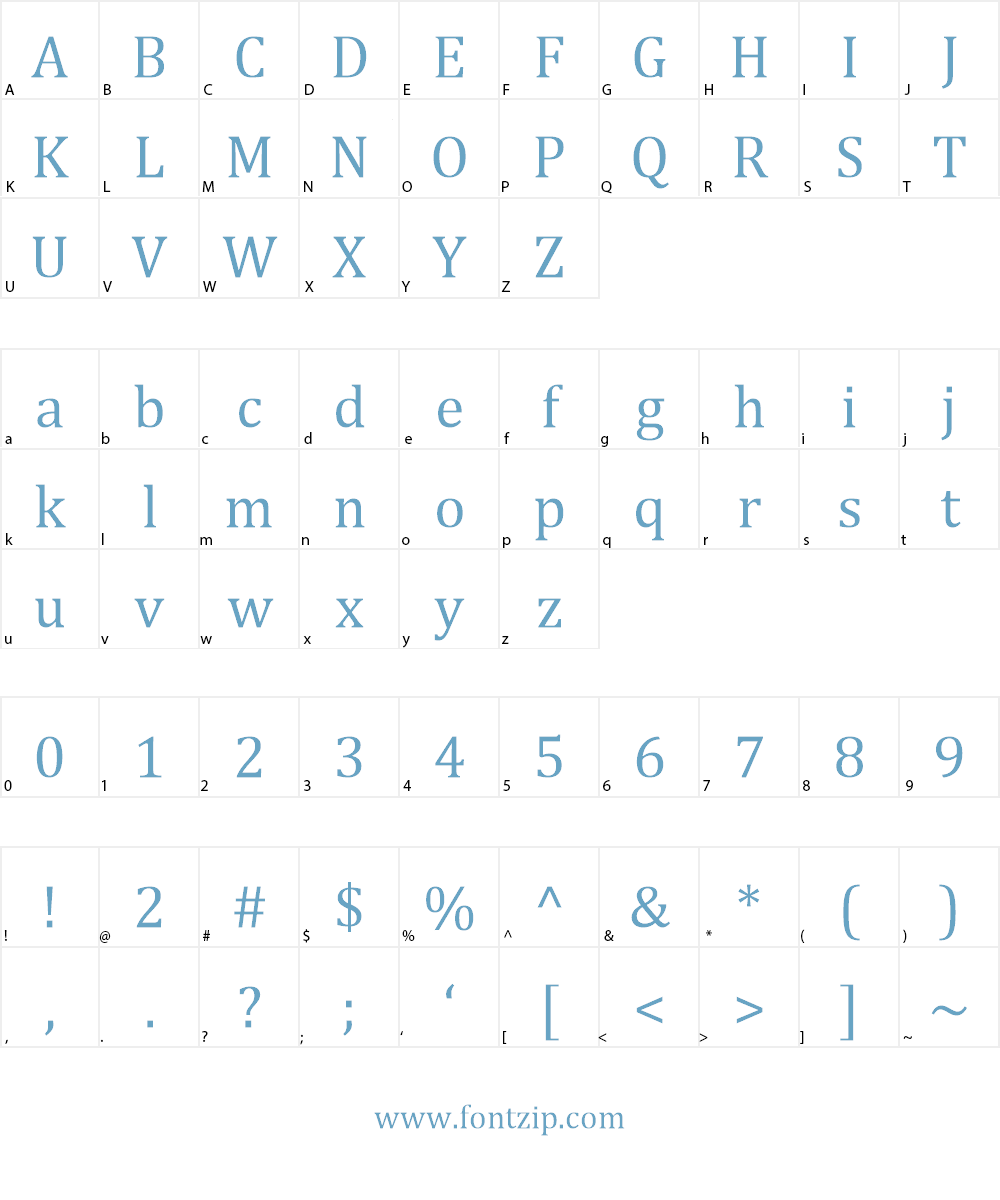
Made from real characters from these fonts: Cambria, Microsoft Yahei, Microsoft Sans Serif, Microsoft Himalaya, Hanazono Mincho, Klingon Font, QUENYA, most of which is Free and Non-commercial.